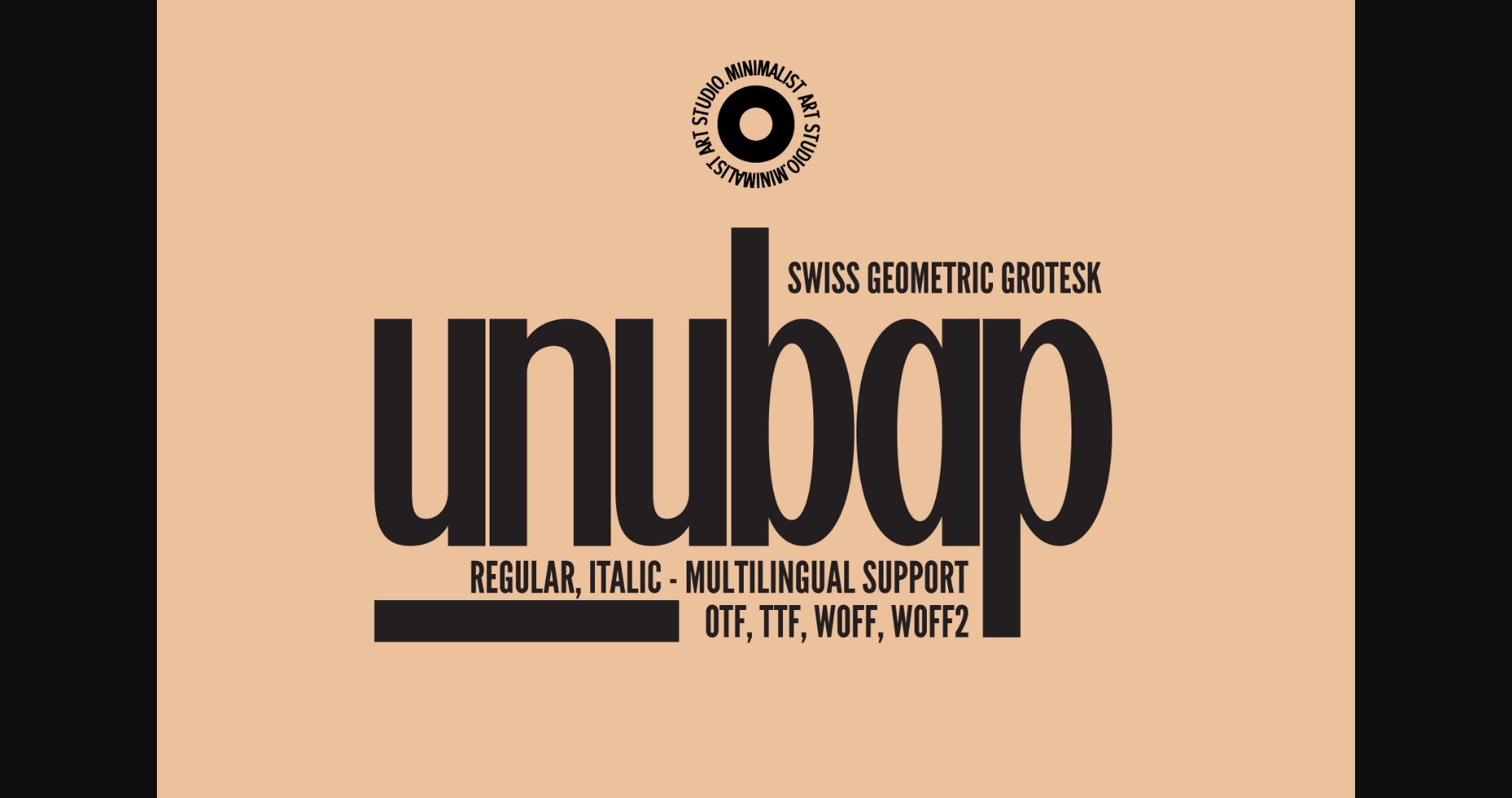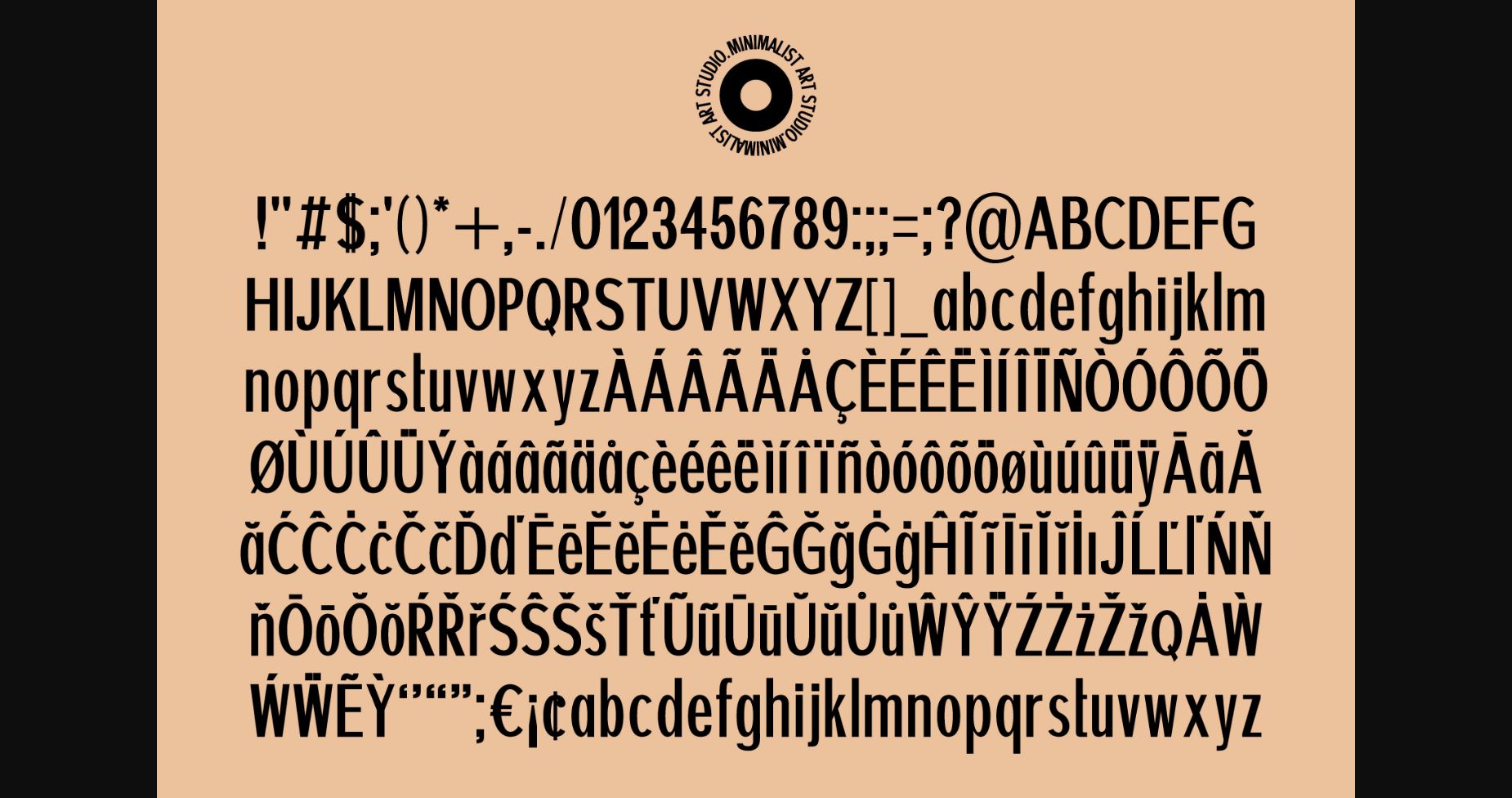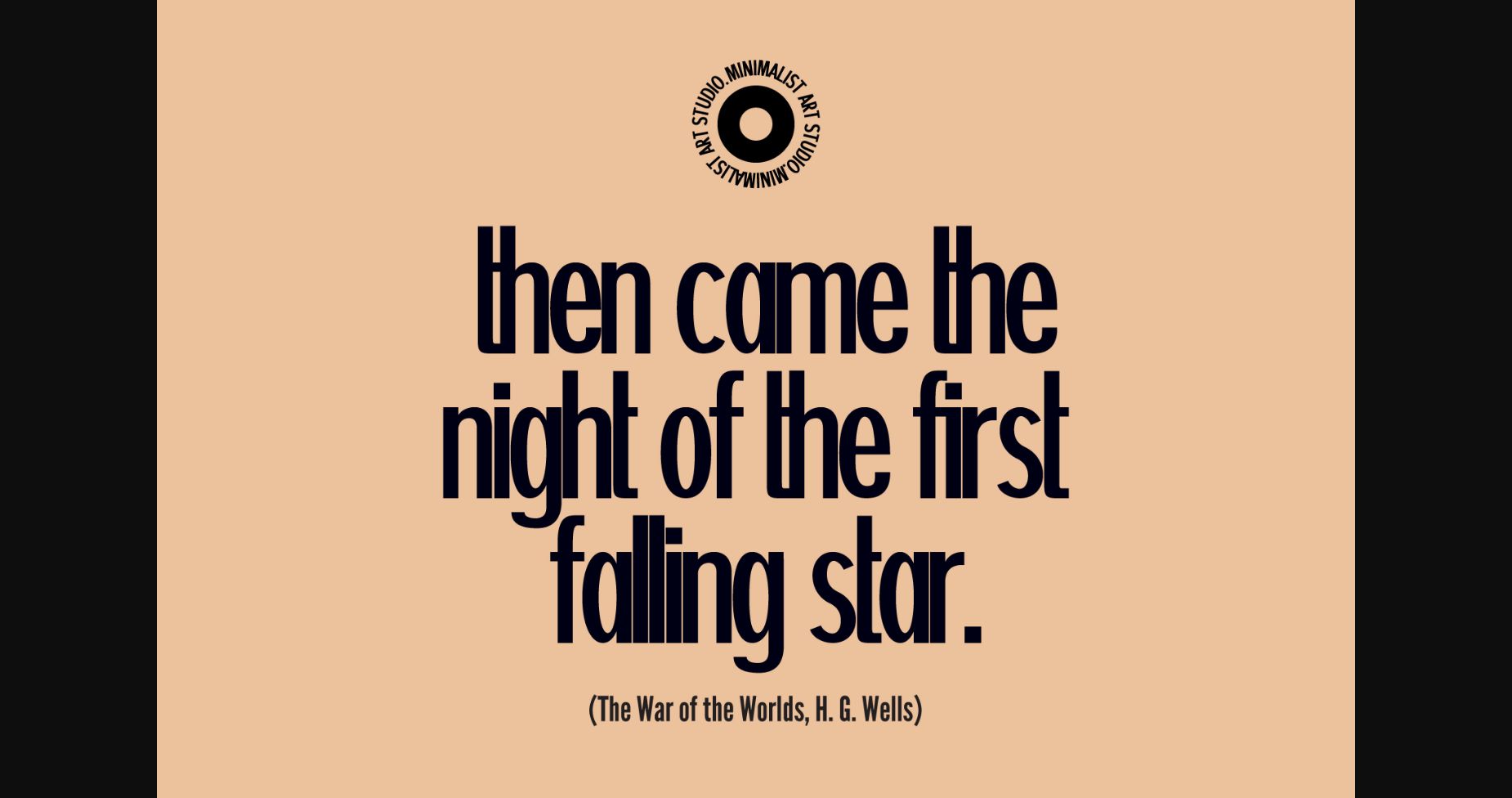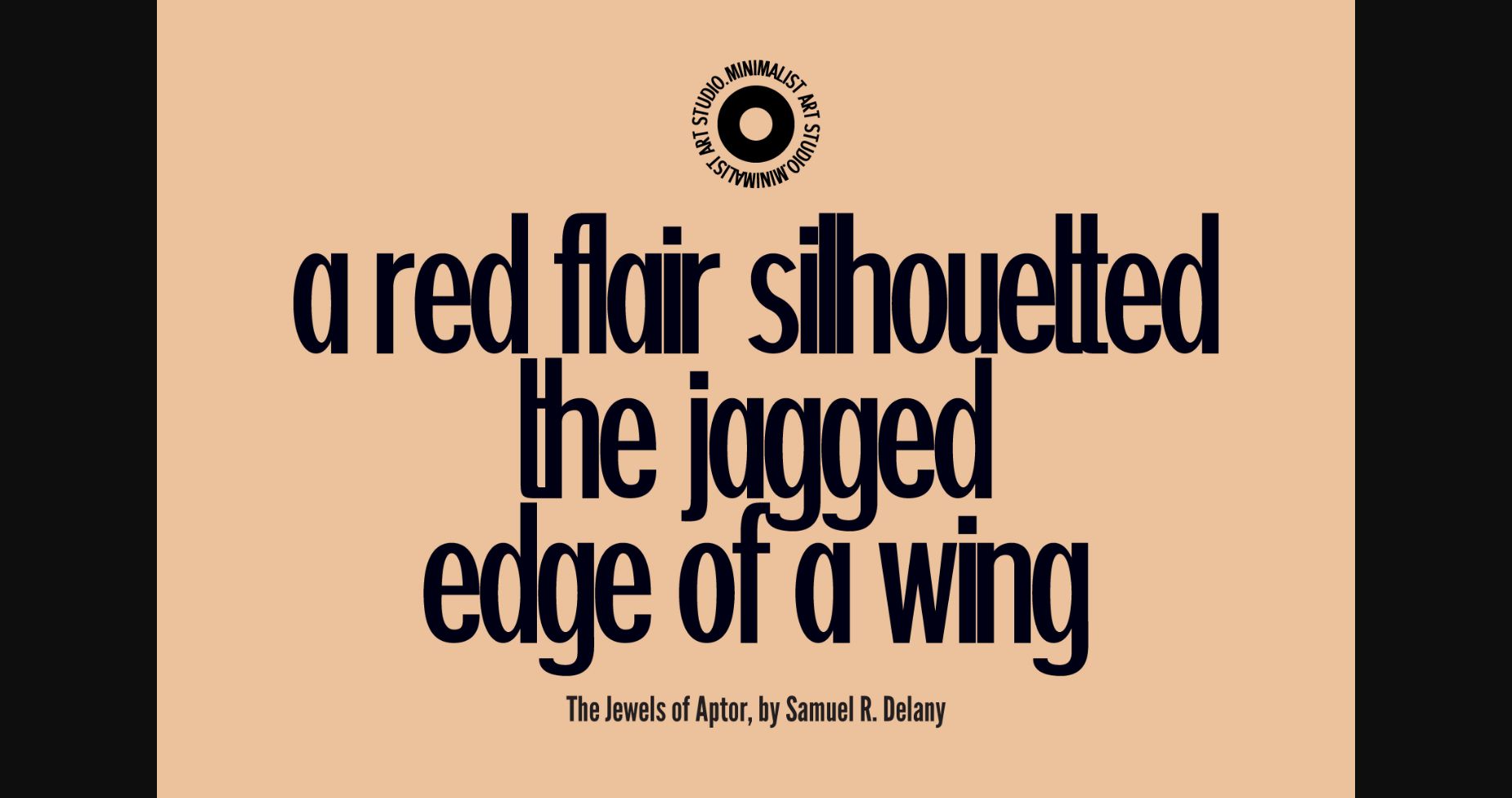
About Unubap Font
Unubap is a versatile and elegant sans-serif font. This font is perfect for those who seek sophistication and style in their designs. The clean, modern lines of Unubap give it a sleek and classy appearance, making it ideal for high-end branding, luxury packaging, or premium print materials.